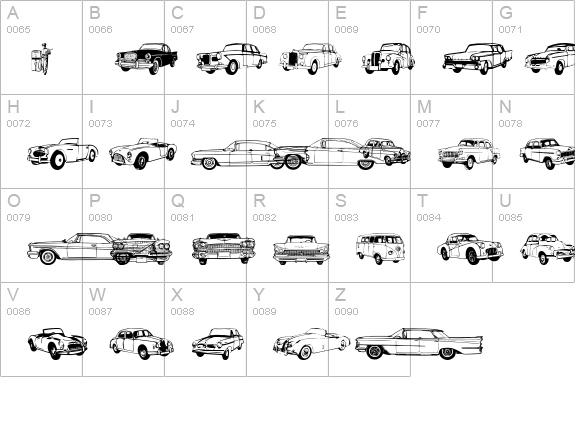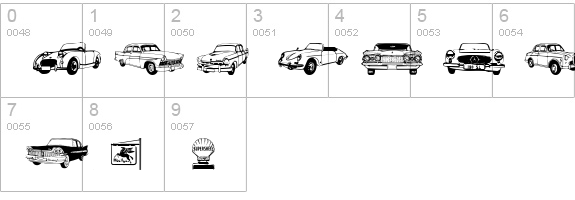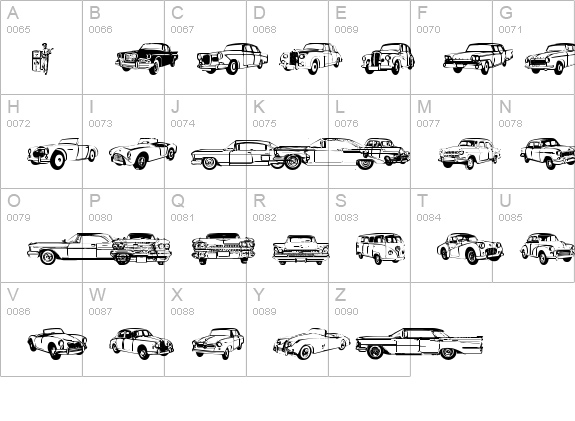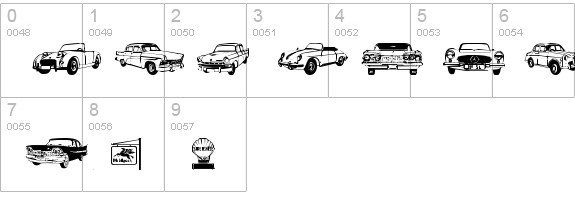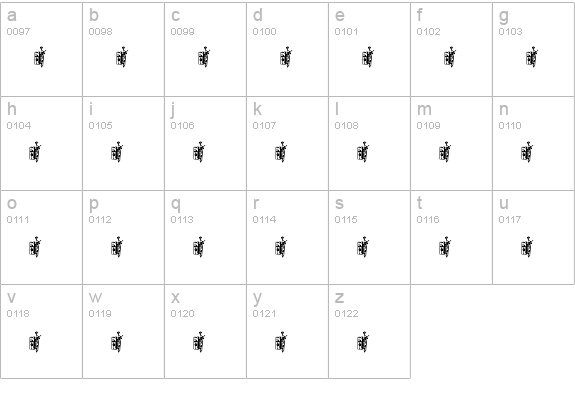
OLDCAR font is a classic and stylish typeface that exudes retro charm and elegance. With its vintage-inspired design and timeless appeal, this font is perfect for adding a touch of nostalgia to your creative projects. The sleek lines and distinctive curves of OLDCAR font bring a sense of sophistication to any design, making it a versatile choice for a wide range of applications. Best of all, OLDCAR font is available for free download at FontsMarket.com. This means that you can easily access this stunning typeface and use it in your projects without any cost. Whether you're working on branding, advertising, or any other design project, OLDCAR font is sure to make a lasting impression. Don't miss out on the opportunity to enhance your designs with the classic beauty of OLDCAR font. Download it today from FontsMarket.com and let your creativity shine with this exquisite typeface.